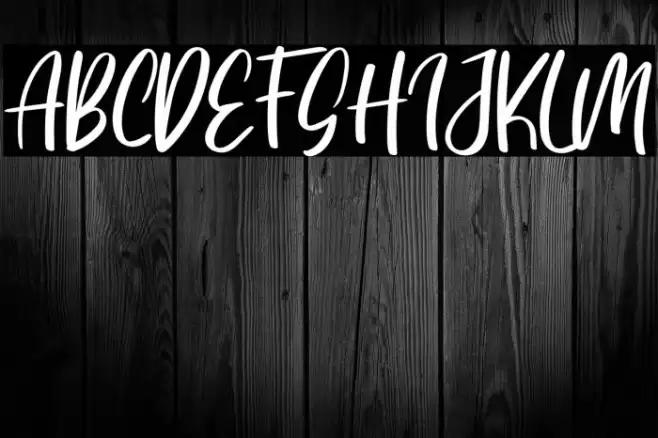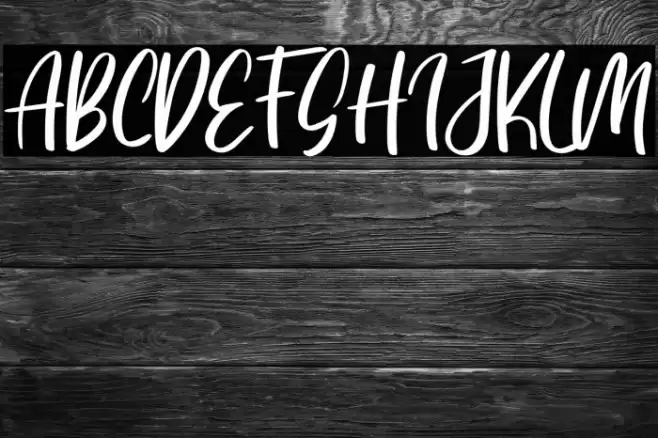
Grand Historia Font
Grand Historia Description
This font features a dynamic and expressive handwritten style, characterized by its fluid, cursive strokes and a playful yet elegant appearance. The uppercase letters are bold and sweeping, with a sense of movement that adds a lively touch to any text. The lowercase letters maintain a consistent flow, complementing the uppercase with their rounded forms and smooth connections. Numbers and special characters are crafted with the same attention to detail, ensuring a cohesive look across all elements. The overall design exudes a sense of creativity and personal touch, making it ideal for projects that require a humanistic and approachable feel.
A dynamic and expressive handwritten font with fluid cursive strokes from Uncategorized fonts.
- Proposed Projects: Ideal for wedding invitations, greeting cards, branding projects, and social media graphics.
- Use Case: Logos, Headlines, Invitations